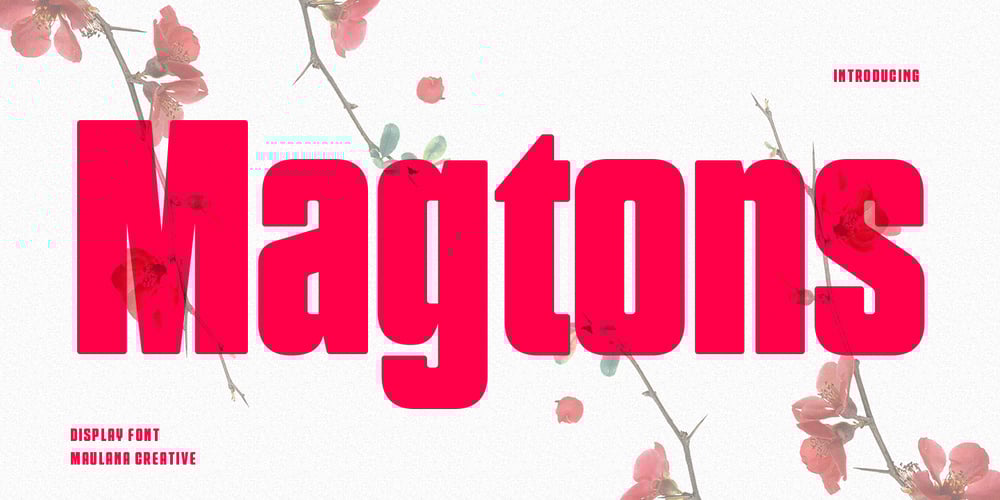
MC Magtons Font Family was designed by Gilang Maulana and published by Maulana Creative. MC Magtons contains 1 styles and family package options. Magtons is a classic condensed strong bold sans display font. Bold stroke, fun character with a bit of ligatures and alternates. To give you an extra creative work. Magtons font support multilingual more than 100+ language. This font is good for logo design, Social media, Movie Titles, Books Titles, a short text even a long text letter and good for your secondary text font with script or serif. Make a stunning work with Magtons font. Cheers, Maulana Creative